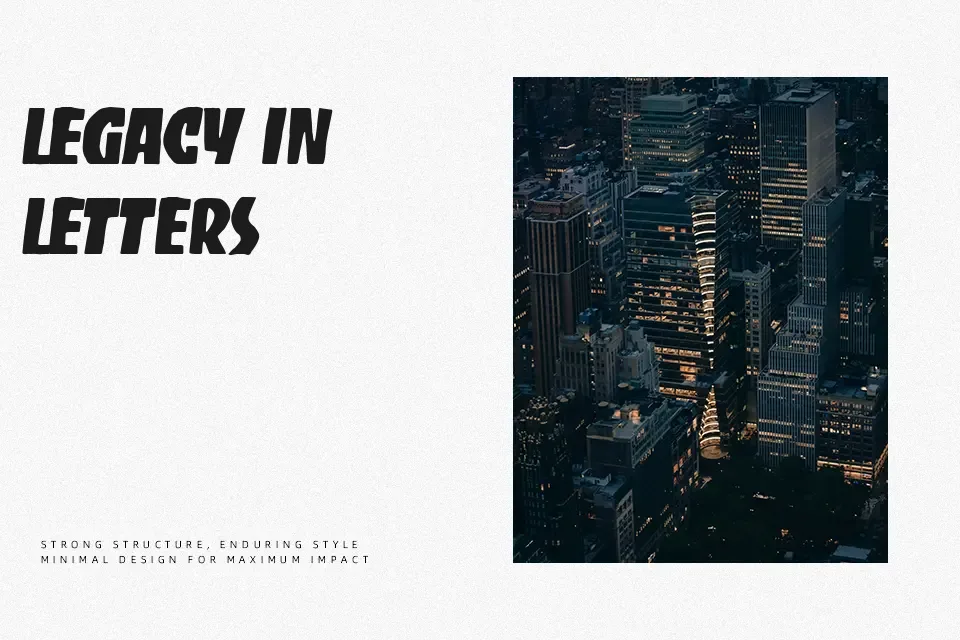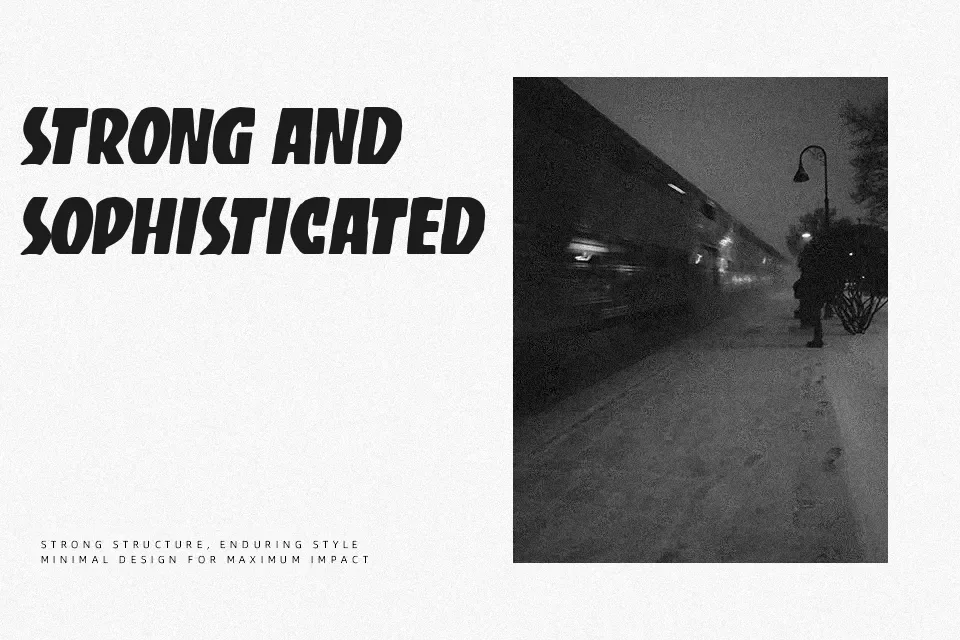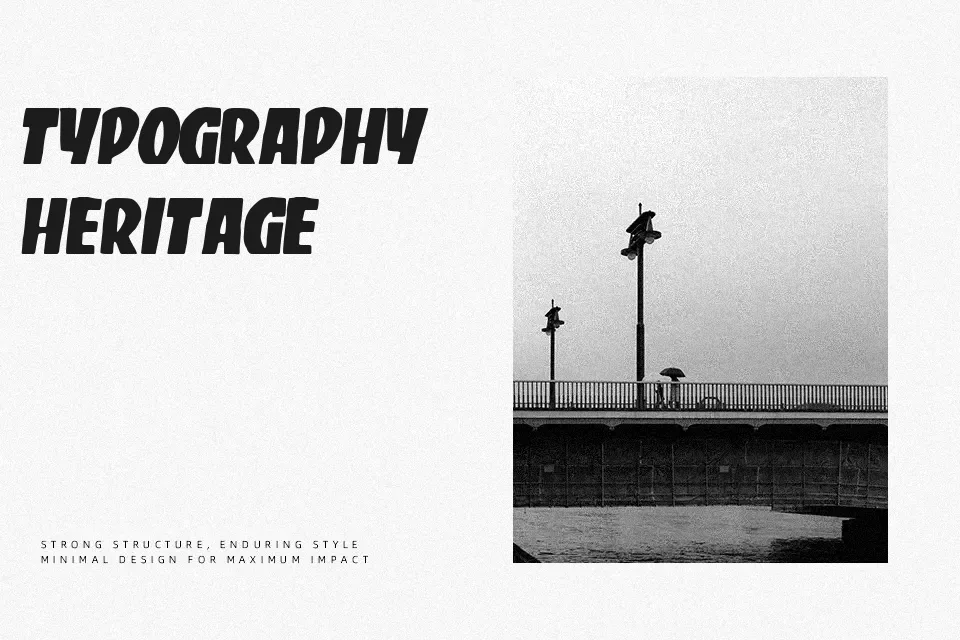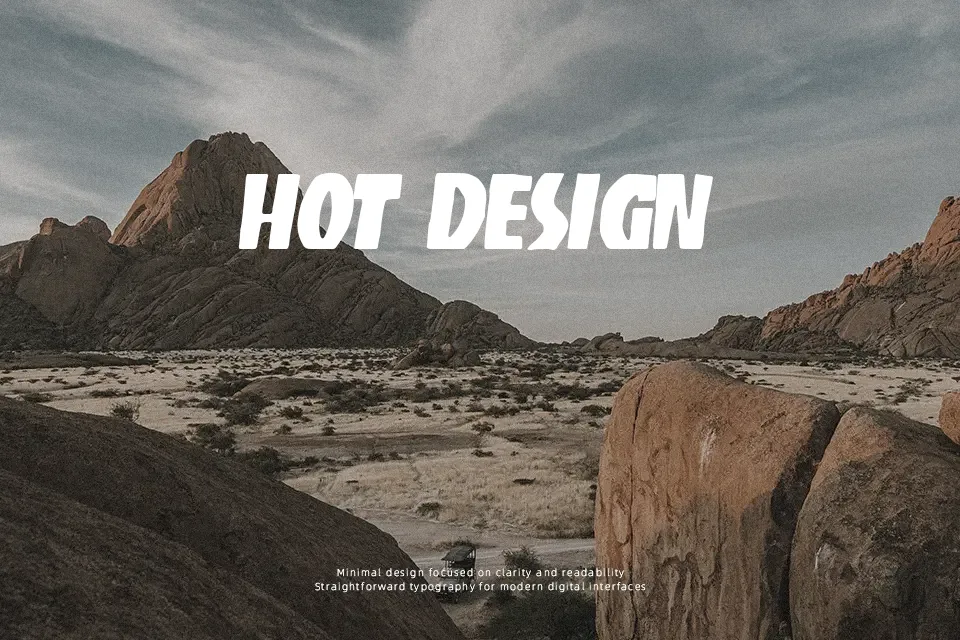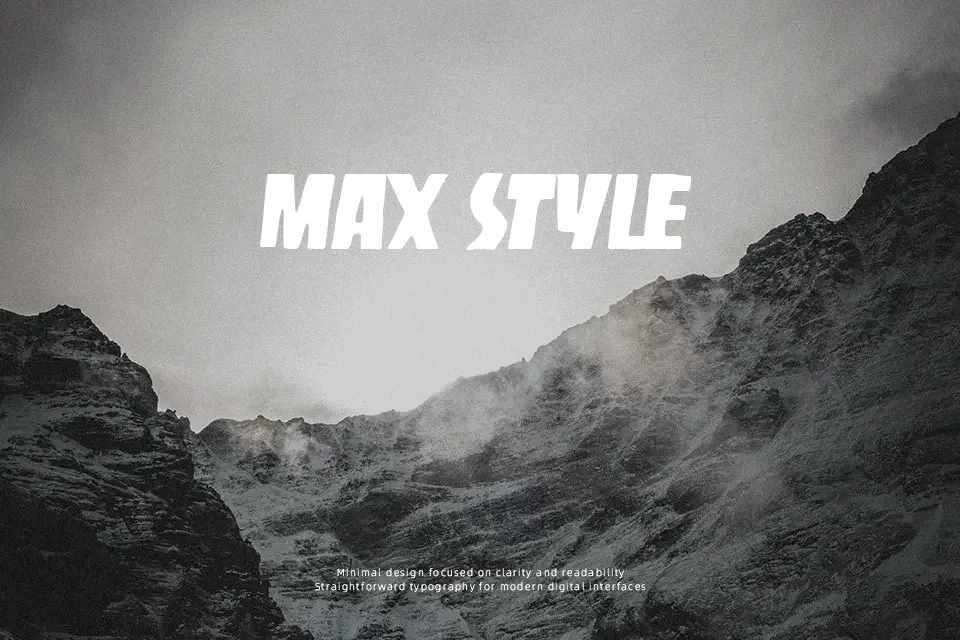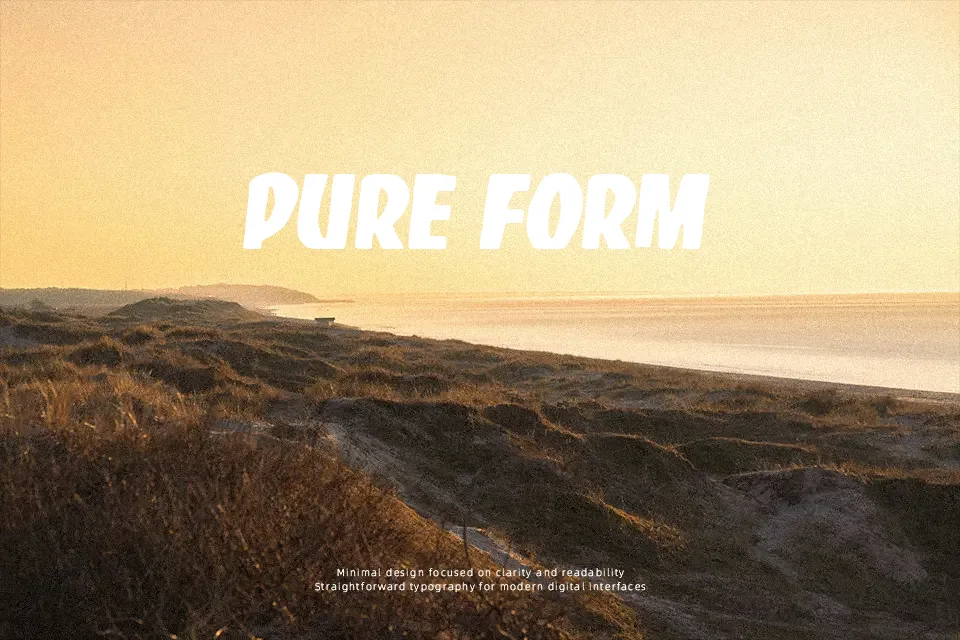
Skateboarding Club Font
Designed with heavy visual weight and raw energy, Skateboarding Club Font immediately stands out in high-impact display scenarios. The typeface features thick, expressive strokes paired with tight character spacing, giving each glyph a dense and punchy presence. Proportions lean wide and sturdy, ensuring strong recognition across large banners, streetwear graphics, and merchandise packaging. However, the compact negative space and prominent structural heft make continuous text difficult to read comfortably. Letterforms tend to blur together at smaller sizes, meaning body paragraphs and fine print should be avoided entirely. The design functions at its absolute best when limited to brief headlines or standalone titles where its distinctive urban character can dominate without compromising layout clarity.
Best For: streetwear apparel graphics, action sports posters, merchandise branding, event headlines
Not Ideal For: long paragraph text, mobile UI body copy, legal documents, dense editorial layouts